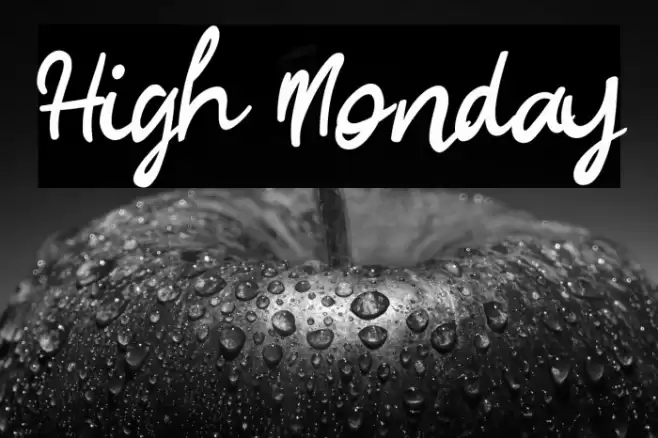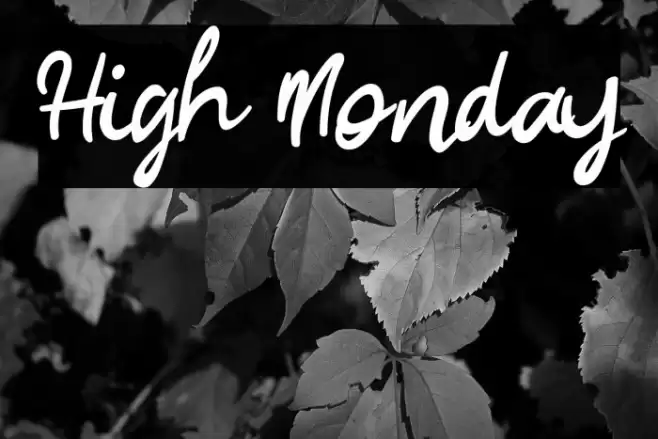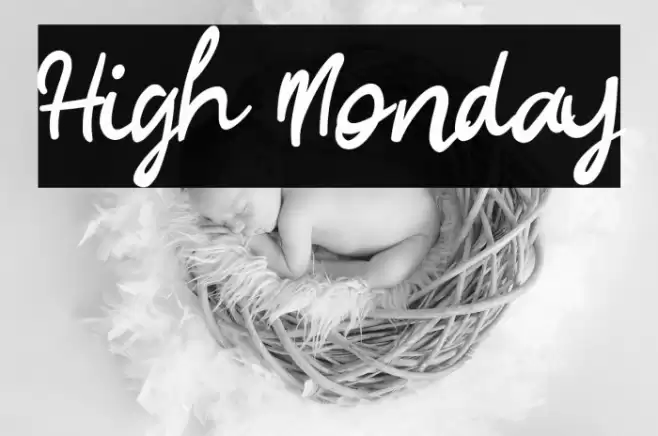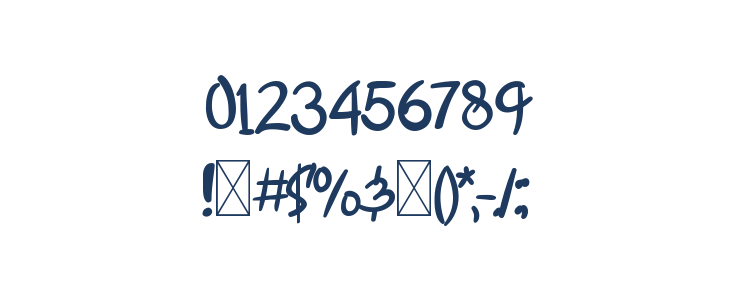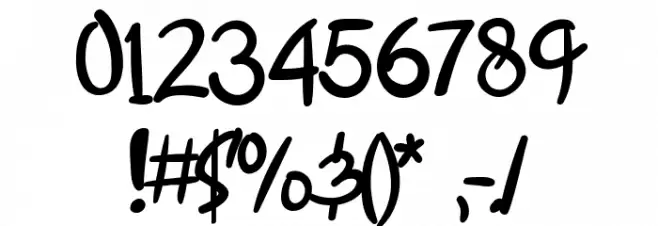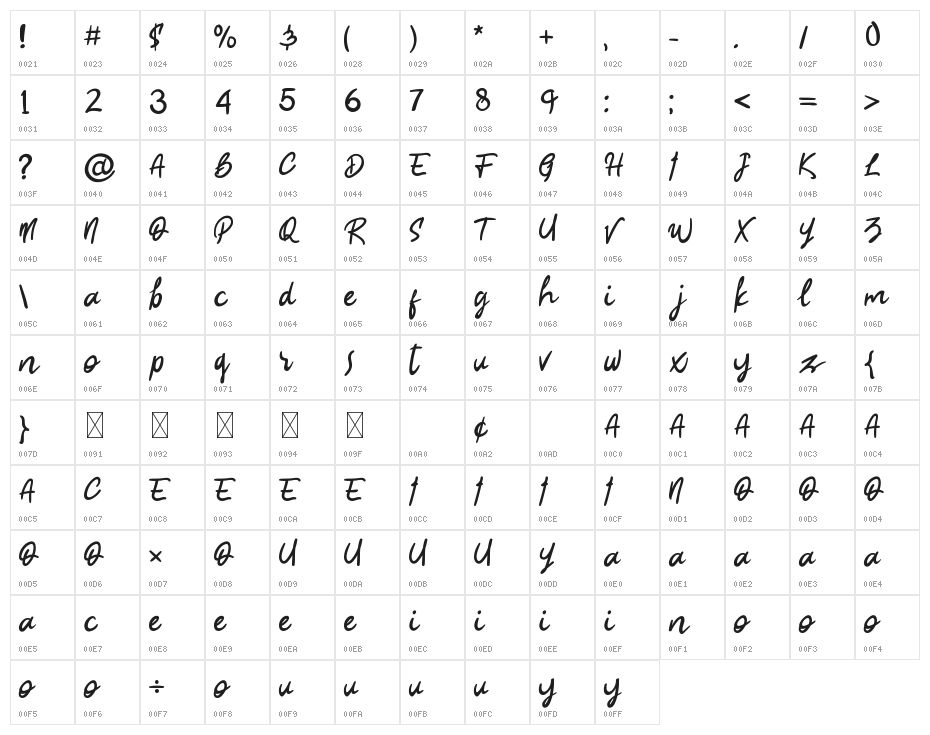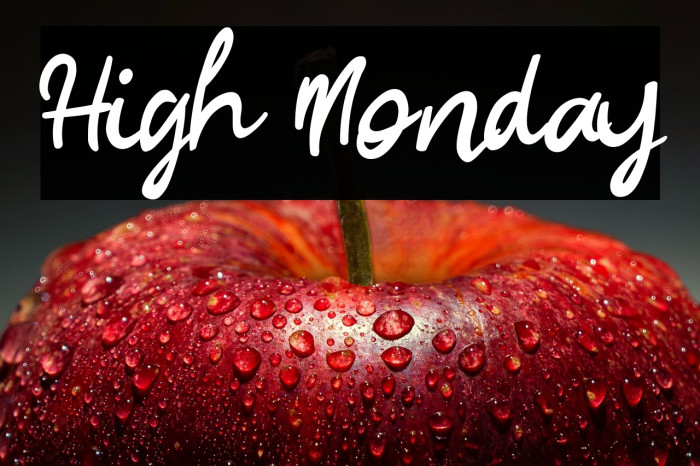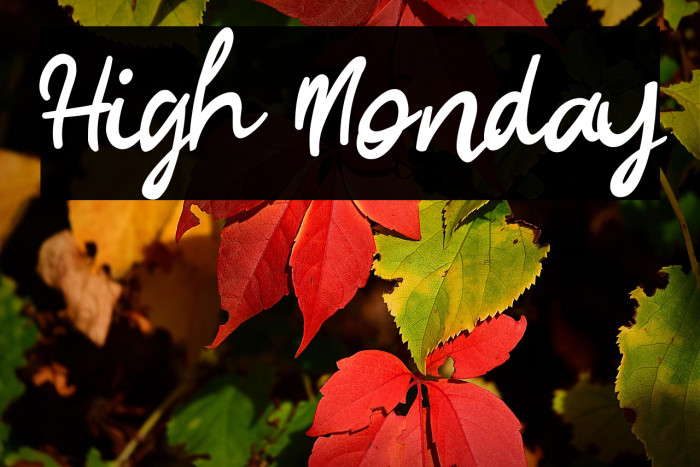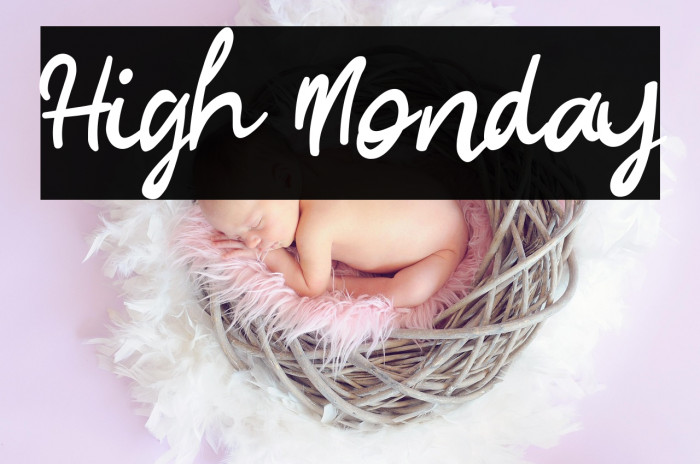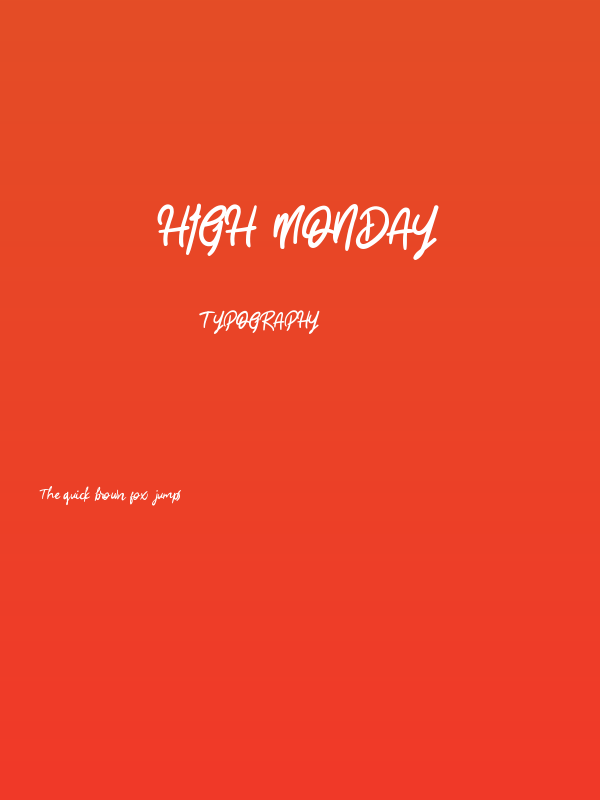
High Monday Font
High Monday Description
This font features a lively and dynamic handwritten style, characterized by its fluid and connected strokes. The uppercase letters exhibit a bold and confident presence, while the lowercase letters maintain a consistent flow, enhancing readability. Numbers and special characters are crafted with the same energetic flair, making them stand out. The overall appearance is casual yet sophisticated, suitable for projects that require a personal touch. The strokes vary slightly in thickness, adding a natural and organic feel to the text.
A dynamic handwritten font with fluid, connected strokes and a lively appearance from Regular fonts.
- Proposed Projects: Ideal for greeting cards, invitations, personal branding, and social media graphics.
- Overall Style: Casual
- Use Case: Logos, Headlines, Invitations